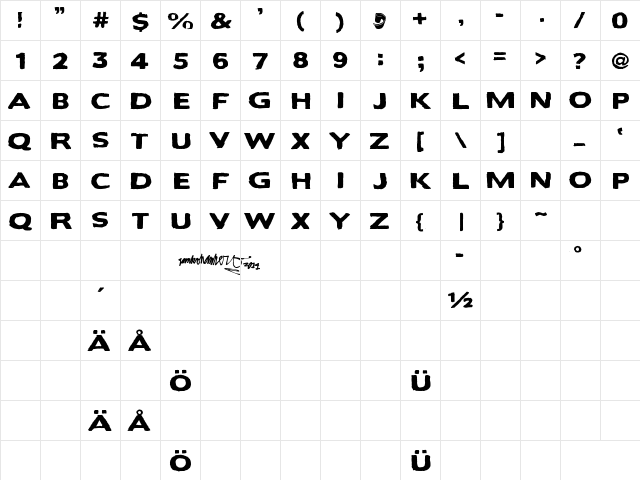
Bactosaurus Regular
Design Context for Bactosaurus Typeface
Bactosaurus is a composed and adaptable typeface that performs quietly and consistently across a wide range of design contexts.
Pro Tip: Use Bactosaurus in both headline and body roles to test its range before committing to a single application.